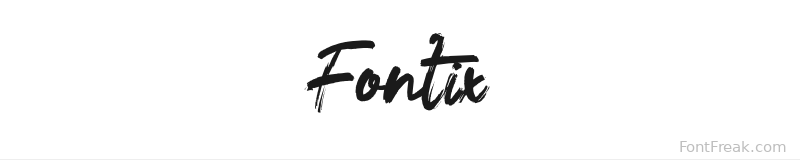
Fontix
Introducing Fontix by Syaf Rizal, a captivating display font that combines contemporary flair with artistic expression. This font, categorized as a decorative typeface, features brush-like strokes that evoke a sense of creativity and spontaneity. The visual characteristics of Fontix include dynamic stroke weights and a charming irregularity that enhances its handwritten appeal. With its elegant curves and striking contrast, Fontix brings a unique personality to any design project.
Fontix is particularly well-suited for a variety of applications. Its artistic style makes it an excellent choice for wedding invitations, where the flowing letters can convey romance and elegance. Additionally, it shines in the realm of movie posters, adding a dramatic flair that captures attention. Restaurant menus can benefit from Fontix’s inviting appearance, making dishes feel more enticing and sophisticated. For content creators and social media marketers, this font can elevate promotional materials, ensuring they stand out in an increasingly crowded digital landscape.
The target audience for Fontix includes graphic designers looking for unique typefaces to enhance their work, small business owners wanting to create memorable branding, and content creators seeking to add a personal touch to their projects. The font’s freeware license makes it accessible, allowing users to incorporate it into a wide range of creative endeavors without the worry of licensing fees.
What sets Fontix apart is its ability to blend artistry with functionality. The distinctive brush strokes and creative energy of this font make it an eye-catching choice for anyone looking to express individuality in their designs. With Fontix font free download available, you can easily infuse your projects with this remarkable typeface and make a lasting impression.